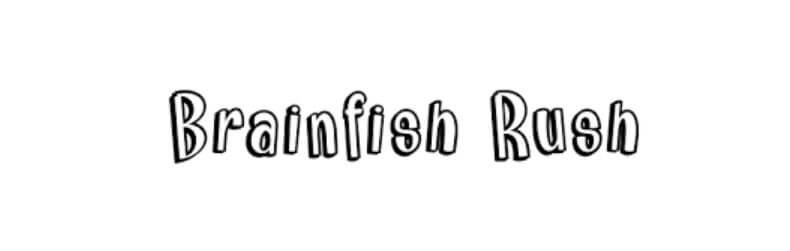
Brainfish Rush font is an amazing font that becomes designed by using Greg Medina and posted for the primary time by Dcoxy font foundry.
Brainfish Rush Font
This font belongs to comic, cartoon and 3-D font. You can use this font your 3D usage font, or anywhere else you want.